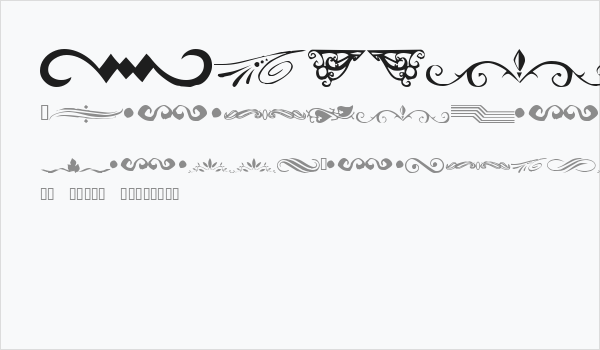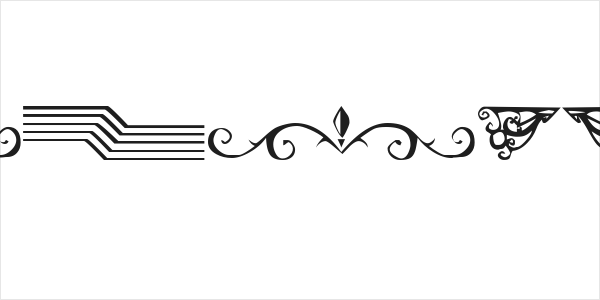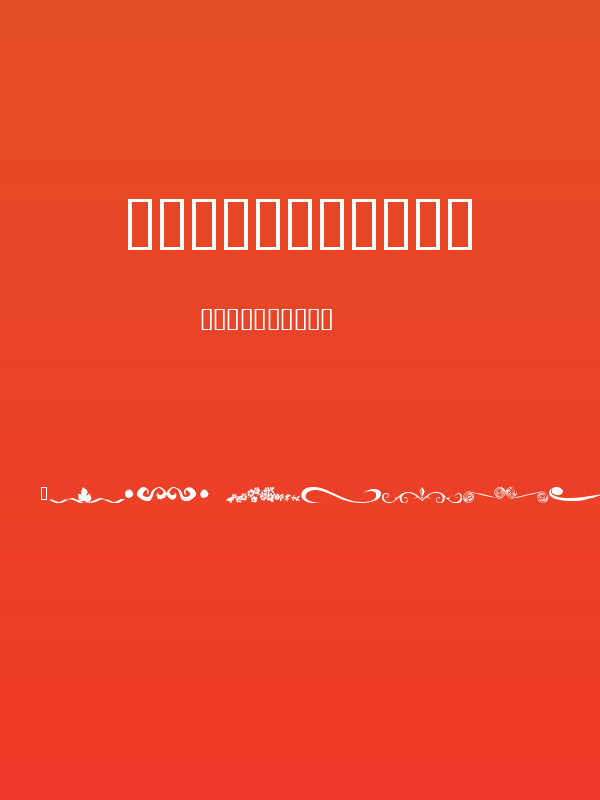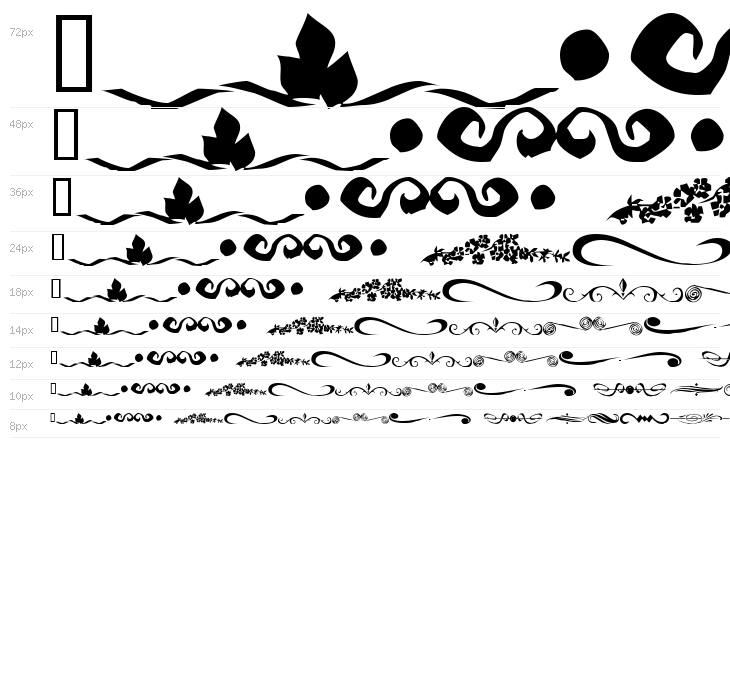
wmdividers1 Font
wmdividers1 Description
This is not a traditional font but rather a collection of decorative dividers. These ornate designs feature intricate swirls, floral motifs, and geometric patterns, ideal for embellishing documents, invitations, or digital content. Each divider is unique, offering a variety of styles from elegant and classic to modern and abstract. The dividers are designed to add a touch of sophistication and visual interest, making them suitable for both formal and creative projects. They can be used to separate sections, highlight important information, or simply enhance the aesthetic appeal of a page.
| Use Case | Decorative elements |
| Proposed Projects | Ideal for invitations, certificates, digital scrapbooking, and decorative page elements. |